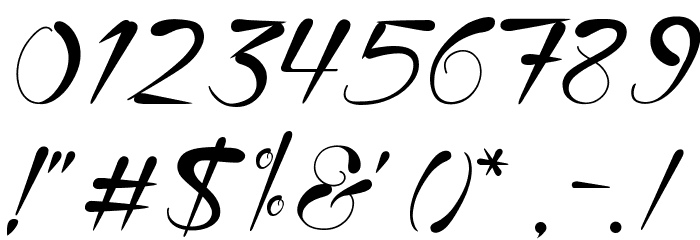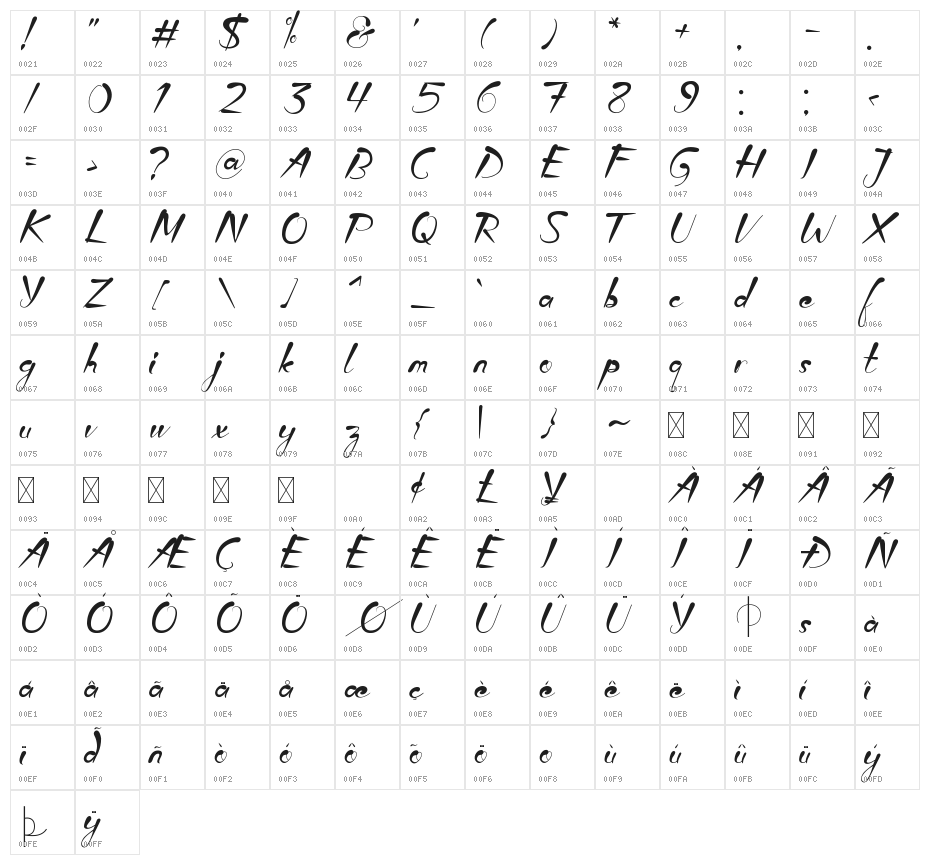
Scary Night Font
Scary Night Description
This font features a dynamic and expressive style with a handwritten appearance. The letters are slanted and exhibit a fluid motion, reminiscent of calligraphy. The strokes vary in thickness, adding a sense of movement and energy. The uppercase letters are bold and dramatic, while the lowercase letters maintain a consistent flow. The numerals and special characters follow the same stylistic approach, ensuring a cohesive look across all elements. This font's unique character makes it suitable for creative and artistic projects.
| Use Case | Headlines, Logos, Artistic designs |
| Proposed Projects | Ideal for Halloween-themed designs, event invitations, artistic posters, and creative branding. |